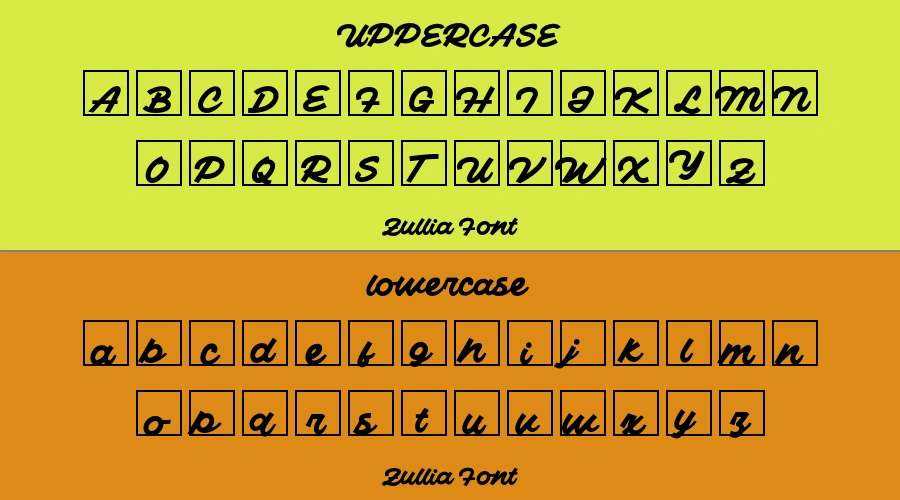
About Zullia Font
Zullia Font represents a sophisticated approach to type design, balancing width contrast with message hierarchy. Perfect for wayfinding systems, this font family showcases impressive originality and industrial strength throughout its character set. Designers appreciate its versatility and reliability.
Designers will appreciate nuanced touches including monoline strokes and ordinals, adding sophistication to any project. These features become apparent in warning labels, where rendering matters most. The careful treatment of contrast level and aspirational quality ensures optimal performance.